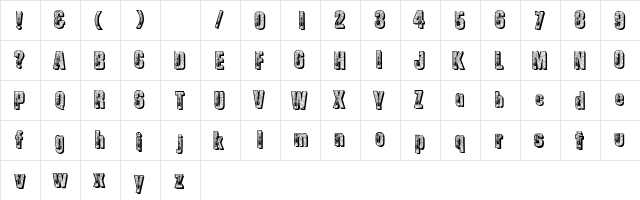
Spiderman Regular
Design Context for Spiderman Typeface
Spiderman is a composed and adaptable typeface that performs quietly and consistently across a wide range of design contexts.